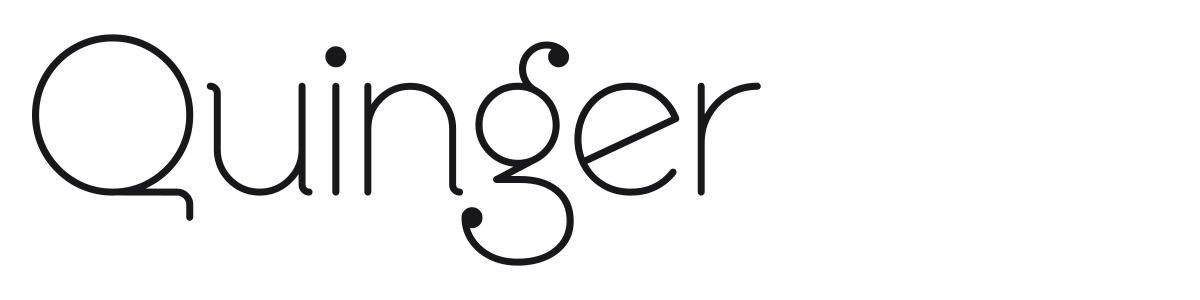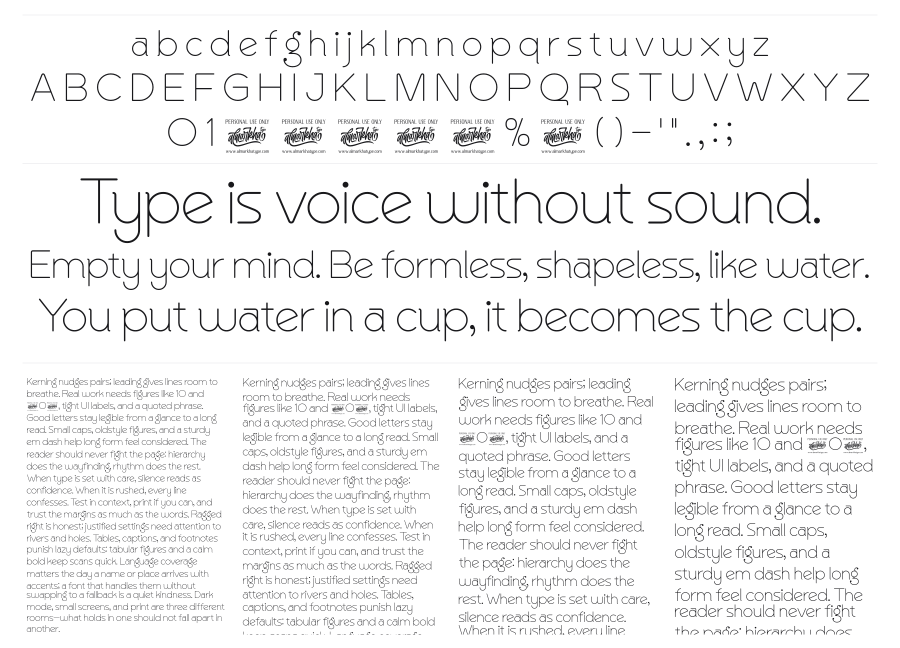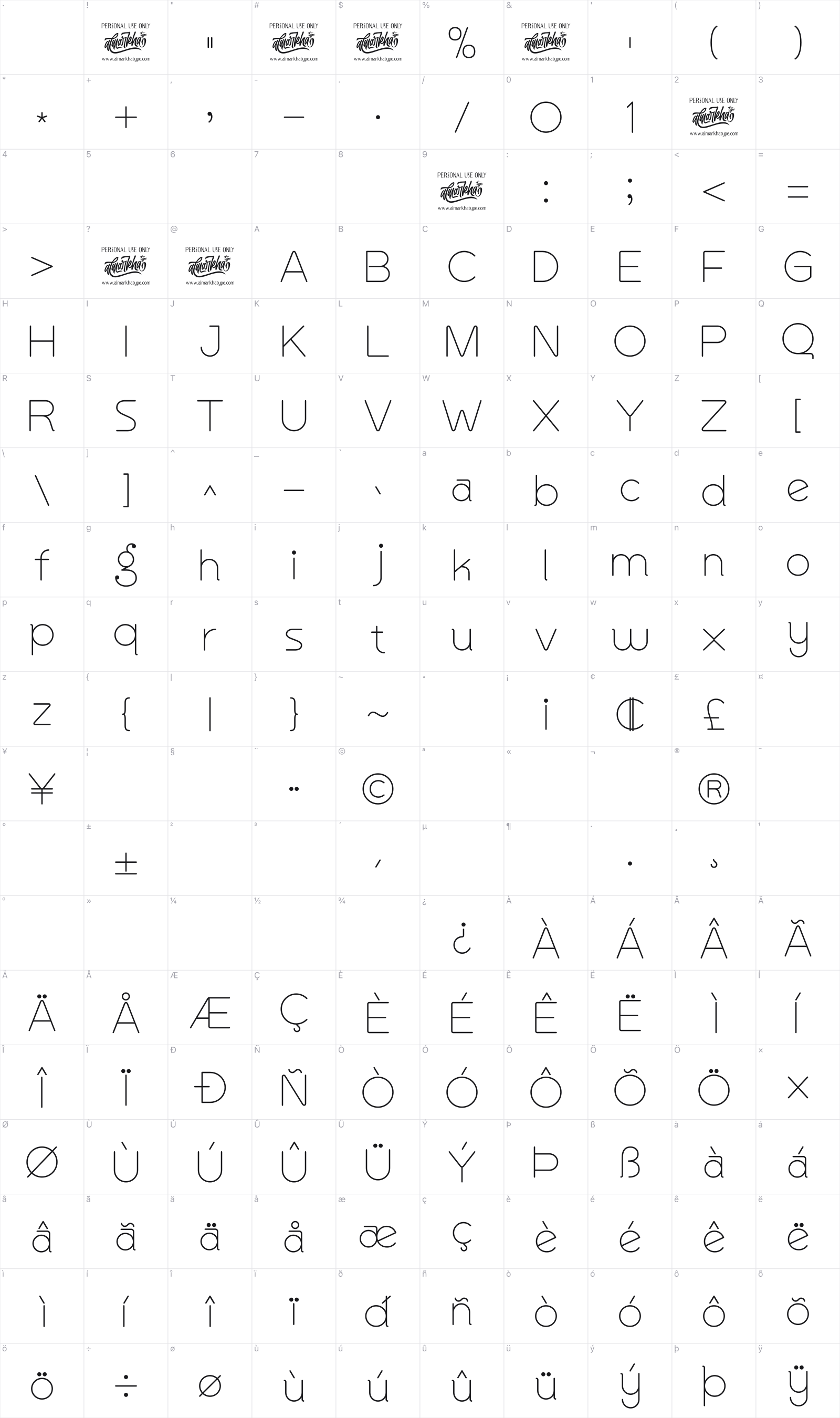
Quinger
Quinger is an ultralight geometric sans-serif with wide circular proportions and a near-invisible stroke weight. A playful looping terminal on certain characters injects just enough personality to distinguish it from a plain geometric skeleton. It carries the effortless lightness that works well at large sizes in fashion, beauty, and luxury branding contexts.